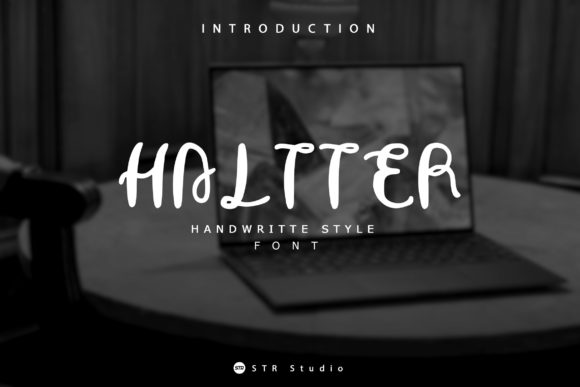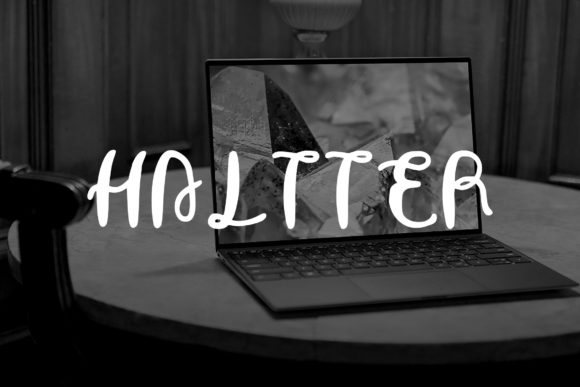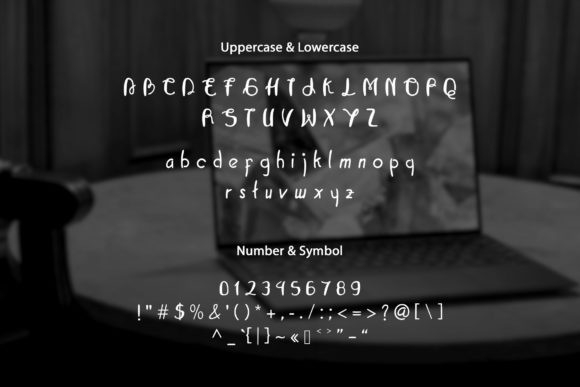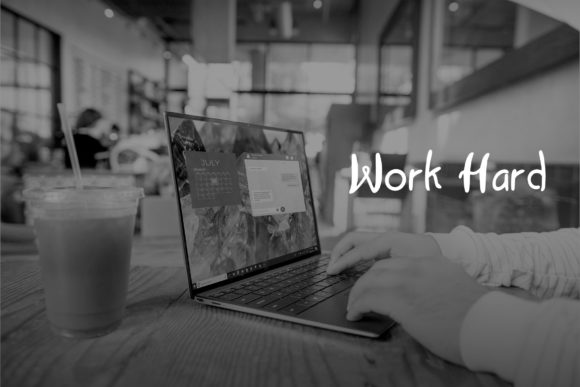
Haltter Font
About Haltter Font
Haltter is a trendy and casual handwritten font. It works well on various design ideas such as letters, invitations, cards or posters. The only limit is your imagination.